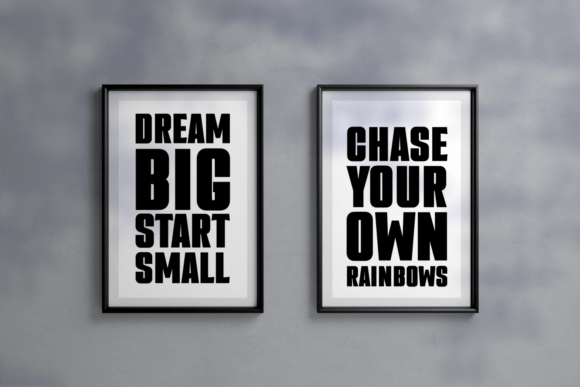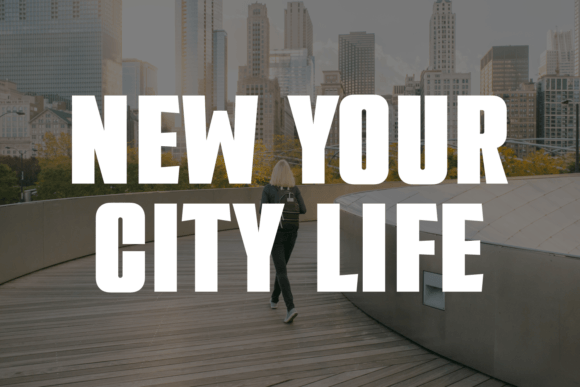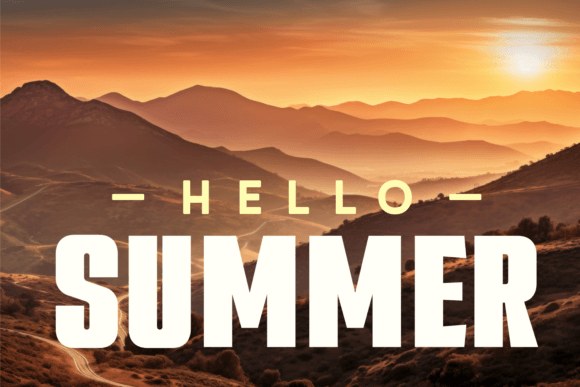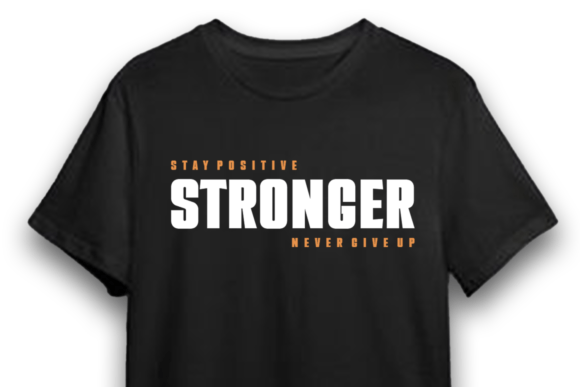
Introducing Embrace Change Font: The Ultimate Game-Changer for Designers and Crafters
In the world of design, fonts play a crucial role in conveying messages, evoking emotions, and creating a lasting impression. For designers and crafters, finding the perfect font can be a daunting task, but we’re excited to introduce you to Embrace Change, a striking sans serif font that embodies boldness and assertion. This extraordinary font is about to revolutionize your creative process and take your projects to the next level.
The Power of Embrace Change Font
Embrace Change is more than just a font – it’s a game-changer. Its stand-out characteristics make it capable of dazzling any audience, regardless of the theme of your project. With its bold and assertive style, this font is perfect for designers and crafters who want to make a statement. Whether you’re working on a logo, branding, packaging, or any other creative project, Embrace Change is the perfect tool to help you achieve your goals.
Key Features of Embrace Change Font
- Bold and Assertive Style: Embrace Change font boasts a bold and assertive style that grabs attention and makes a lasting impression.
- Sans Serif Design: The sans serif design of Embrace Change gives it a modern and clean look, making it perfect for a wide range of projects.
- High Versatility: This font is highly versatile and can be used for various projects, including logos, branding, packaging, and more.
- Easy to Read: Despite its bold style, Embrace Change is easy to read, making it perfect for body text and headlines.
Benefits of Using Embrace Change Font
So, why should you choose Embrace Change font for your next project? Here are just a few benefits of using this incredible font:
- Enhance Your Brand Identity: With Embrace Change, you can create a strong brand identity that sets you apart from the competition.
- Make a Lasting Impression: The bold and assertive style of Embrace Change ensures that your message is conveyed effectively and leaves a lasting impression on your audience.
- Save Time and Effort: With Embrace Change, you can save time and effort searching for the perfect font. This font is designed to meet your needs and exceed your expectations.
How to Use Embrace Change Font
Using Embrace Change font is easy and straightforward. Here are a few tips to get you started:
- Pair it with Other Fonts: Embrace Change can be paired with other fonts to create a unique and visually appealing combination.
- Experiment with Different Sizes: Experiment with different sizes to find the perfect balance for your project.
- Use it for Headlines and Body Text: Use Embrace Change for headlines and body text to create a cohesive and professional look.